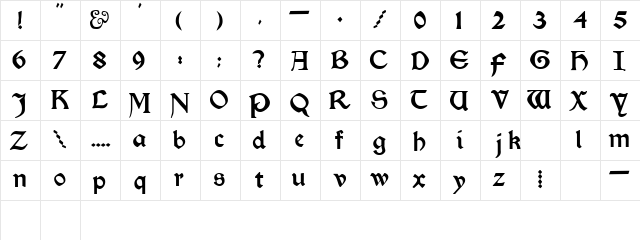
Cranmer Regular Font Preview
Cranmer Regular
Design Context for Cranmer Typeface
Cranmer is a composed and adaptable typeface that performs quietly and consistently across a wide range of design contexts.